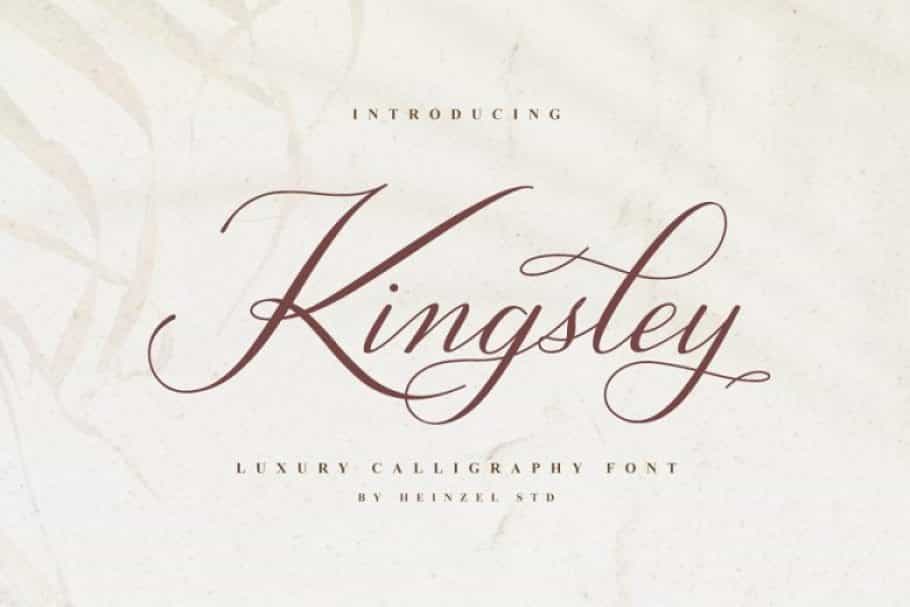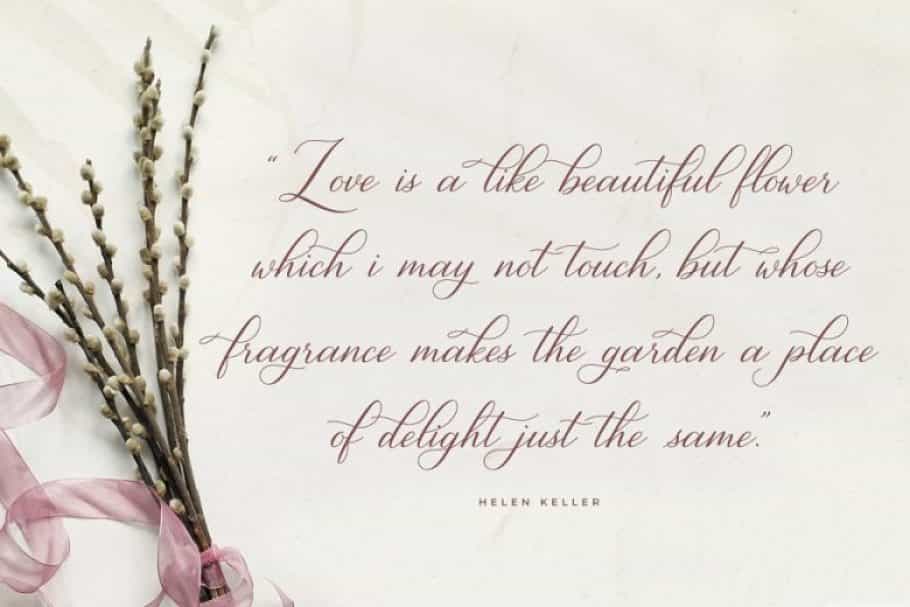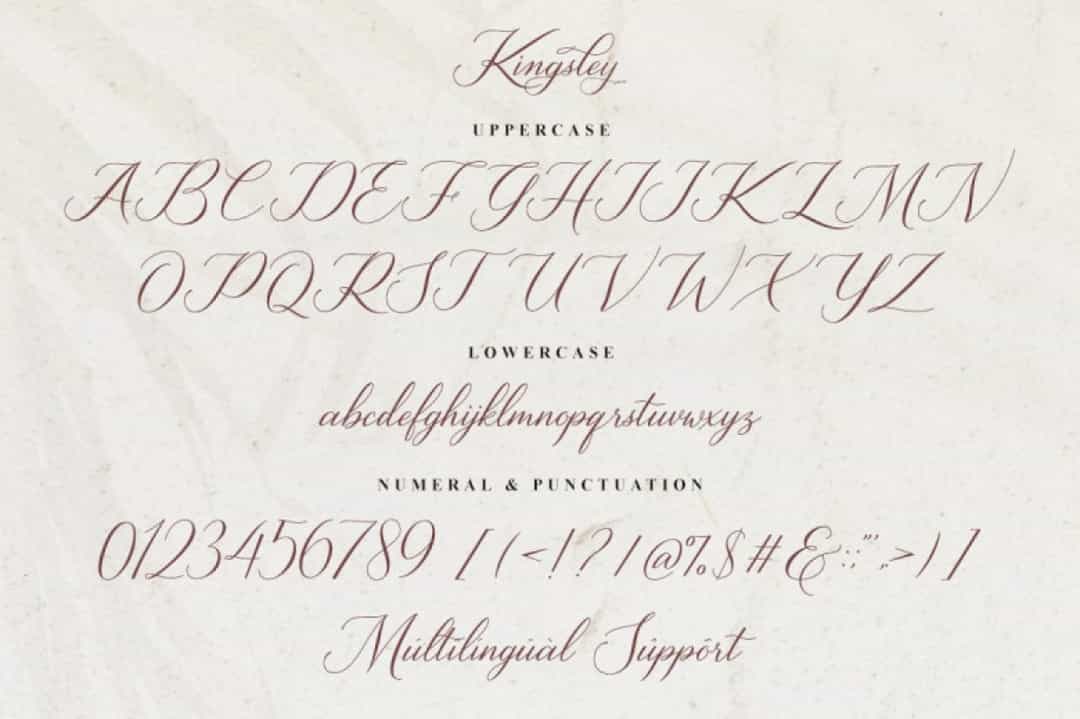
Kingsley Font is a modern and classy calligraphy font that will enrich the aesthetics of any design that you apply it on. Every Kingsley Font file has a number of fantastic options. Perfect for bridal, brand, romantic, and social invitations of any type of event, and can also be used for digital lettering, titles, logos, weddings, and even simple invitations, t-shirts, signs, letterhead, etc.